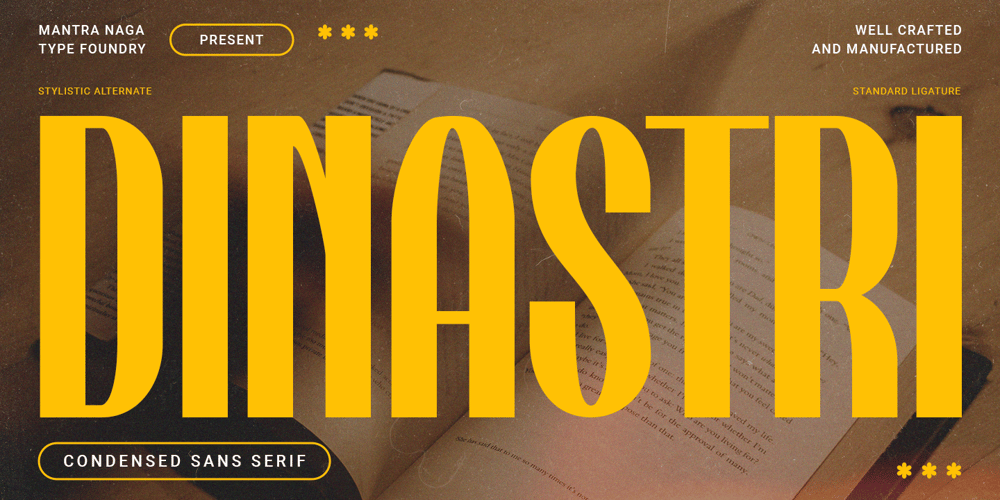
Dinastri
Dinastri font
Dinastri Font Family was designed by Fredo Eka Pratama and published by Mantra Naga Studio. Dinastri contains 1 styles and family package options. Dinastri is a condensed sans serif font that has a modern edge with bold characteristics. At 385 glyphs, this font is perfect for modern logos, contemporary web designs, or printed headlines.385 Glyphs5 Opentype features7 Ligatures and 11 Stylistic alternatesMultilingual support for 89 languagesWe highly recommend using a program that supports the OpenType feature and the Glyphs panel like many Adobe and Corel Draw applications, so that you can view and access all variations of Glyphs. Thanks for your support of our product and using it in your project.